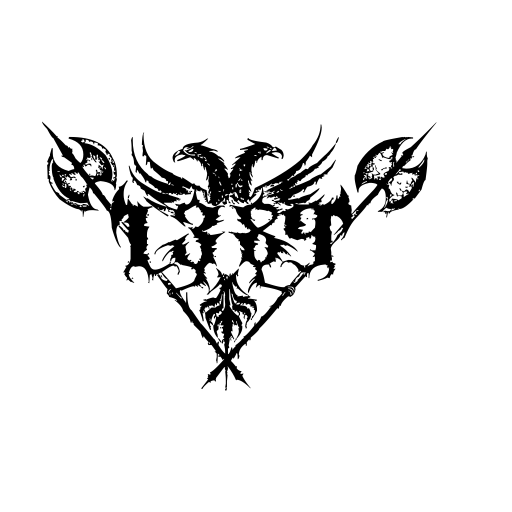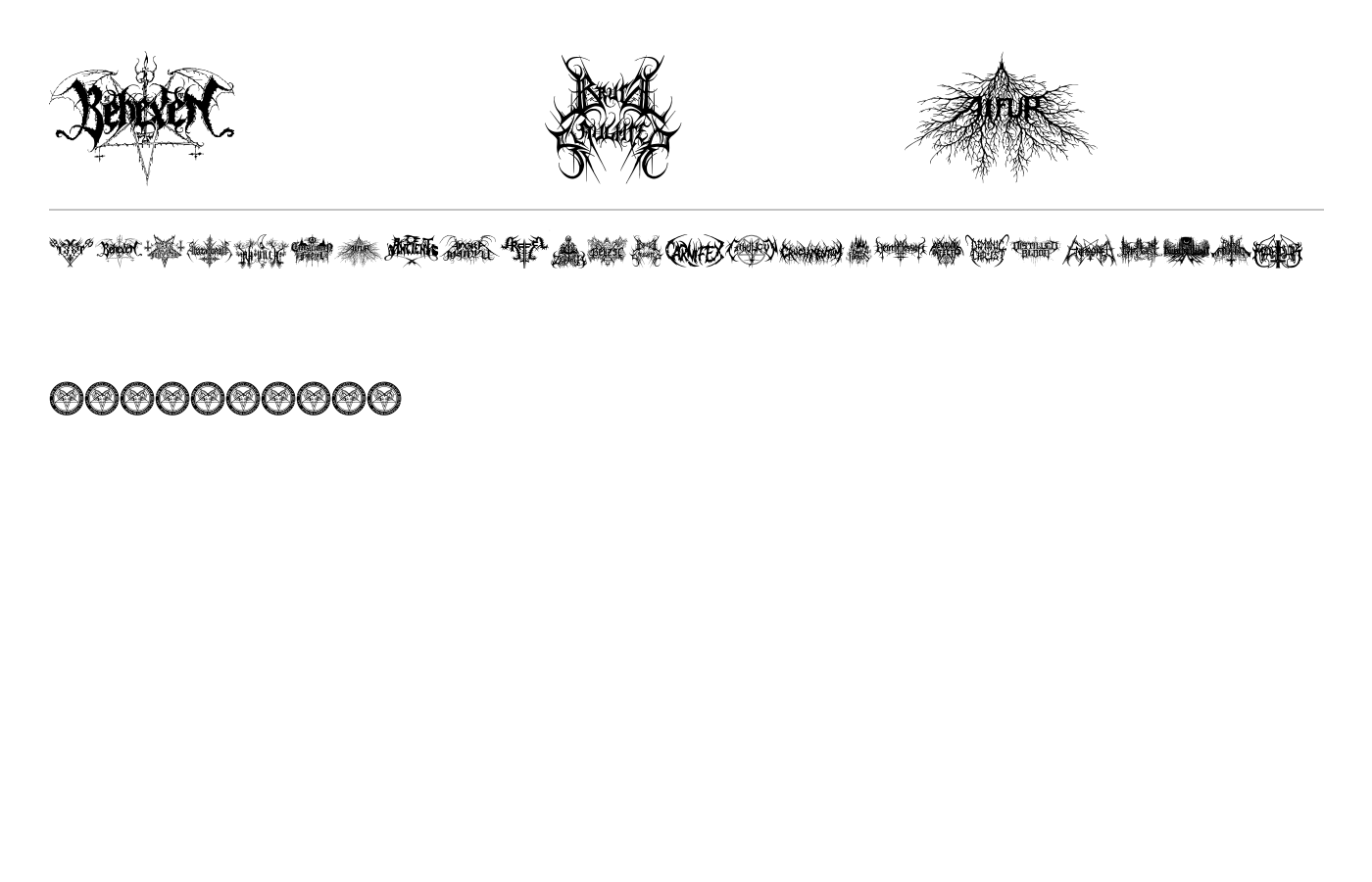
Black Metal G is a highly decorative, blackletter-inspired font with an intense, chaotic style reminiscent of metal band logos. Its intricate, thorny strokes and sharp edges create a dark, aggressive atmosphere, making it perfect for heavy metal or horror-themed branding and artwork. This font works best in large display settings where its complex details can be appreciated, such as posters, album covers, or logos.
Black Metal G Font
About Black Metal G Font
| Font family | Black Metal G Font |